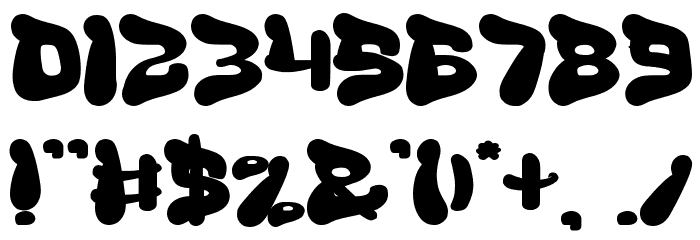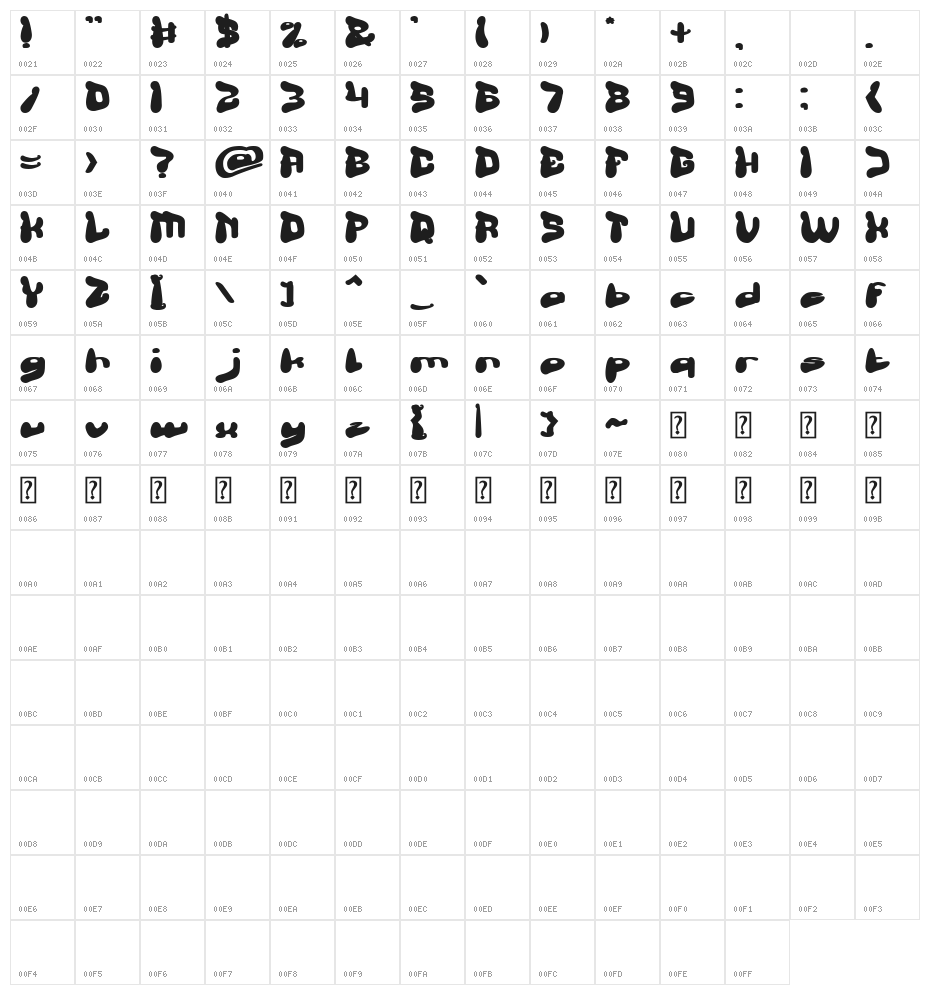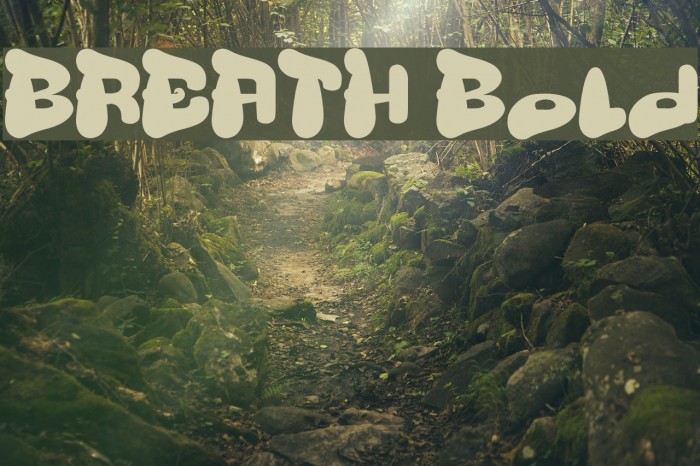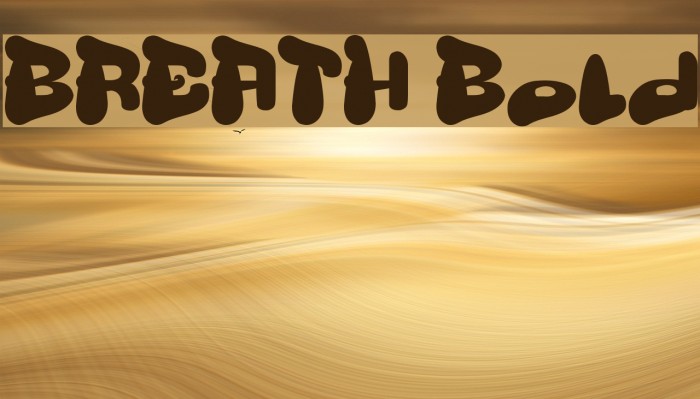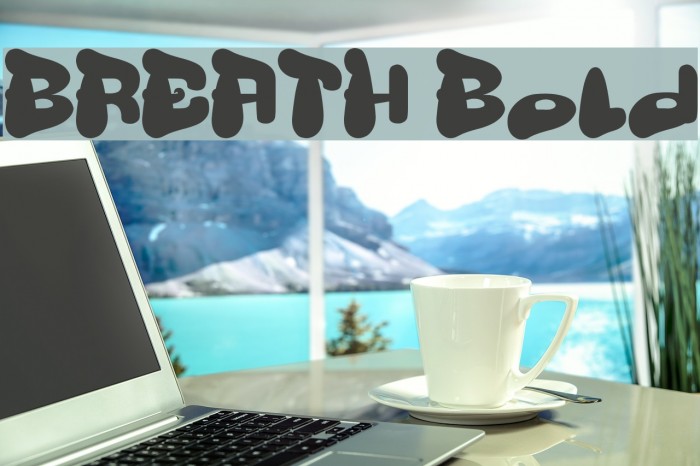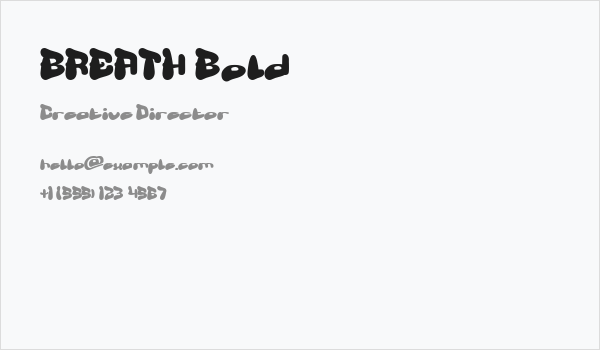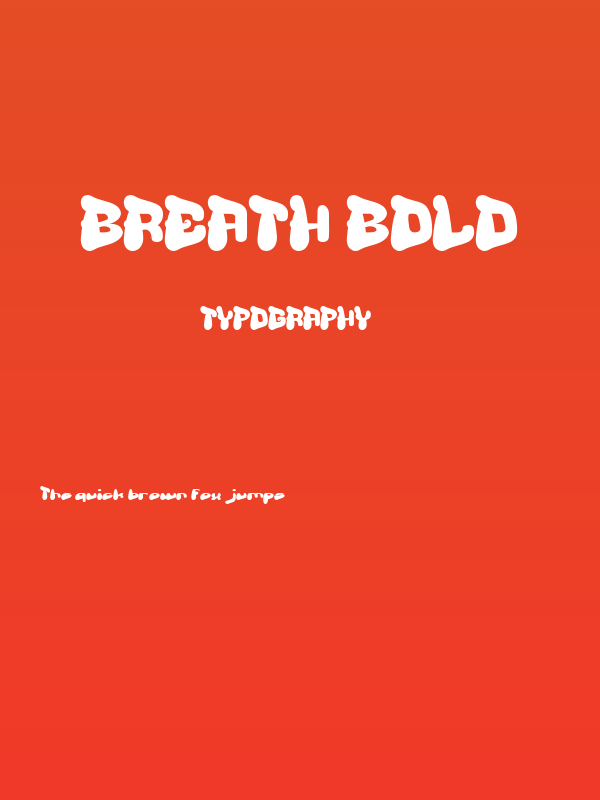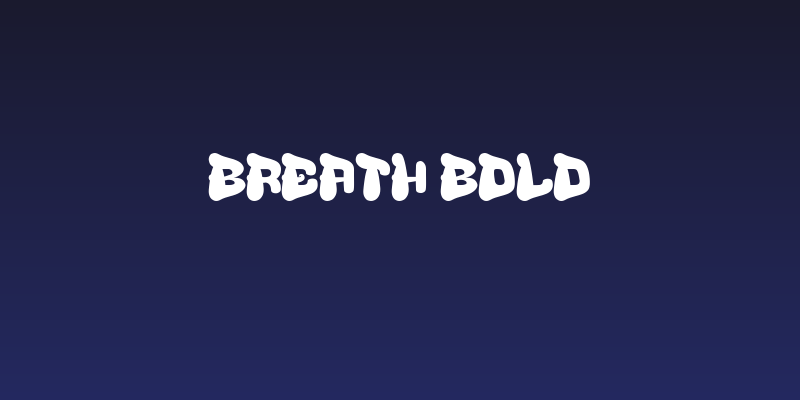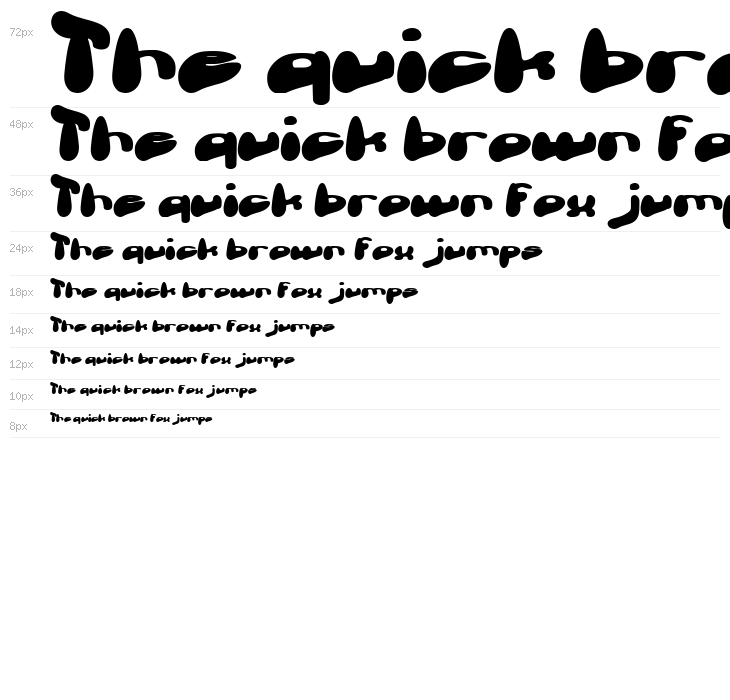
BREATH Bold Font
BREATH Bold Description
This font features a bold and playful design with a distinctly rounded and bubbly appearance. The characters are thick and substantial, giving a sense of weight and presence. The rounded edges and irregular shapes contribute to a whimsical and informal style, making it stand out in any design. The font maintains a consistent thickness throughout, which adds to its boldness and impact. Its unique style is both eye-catching and approachable, suitable for a variety of creative applications.